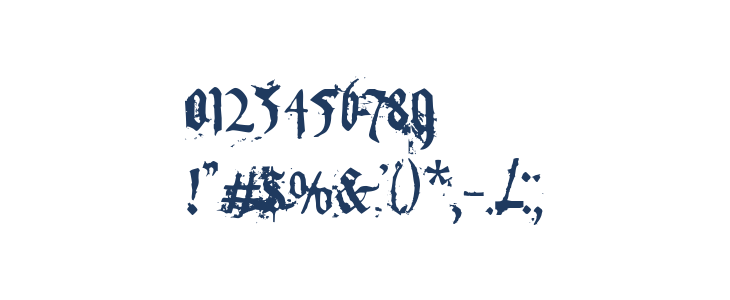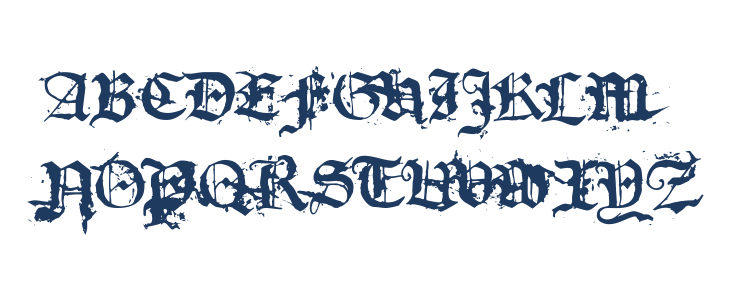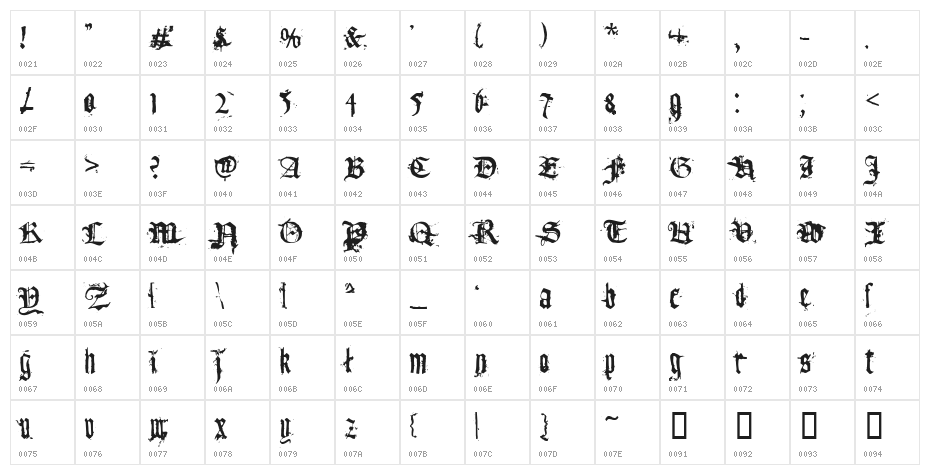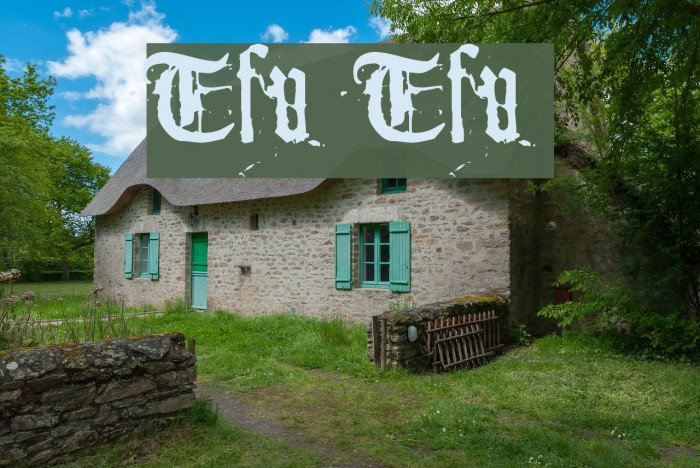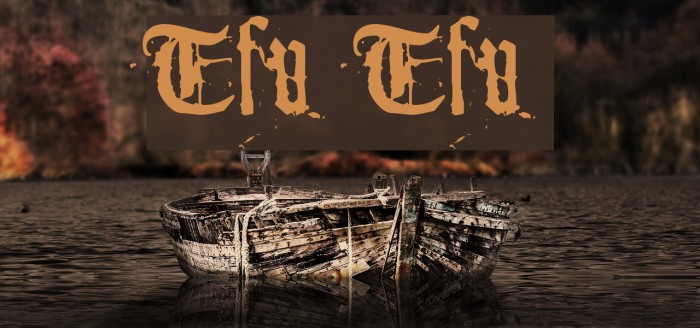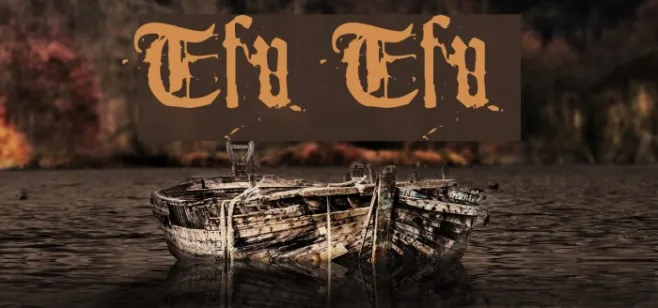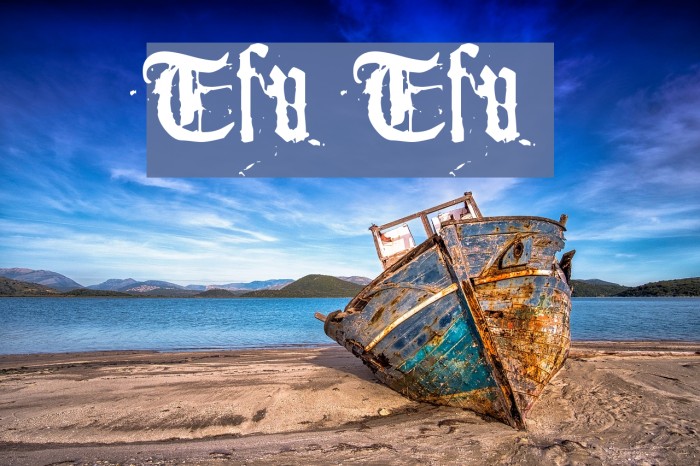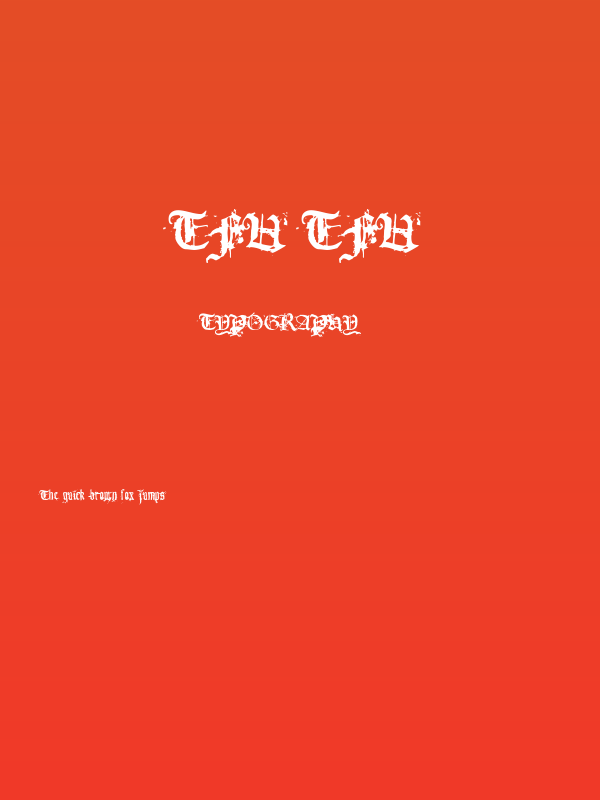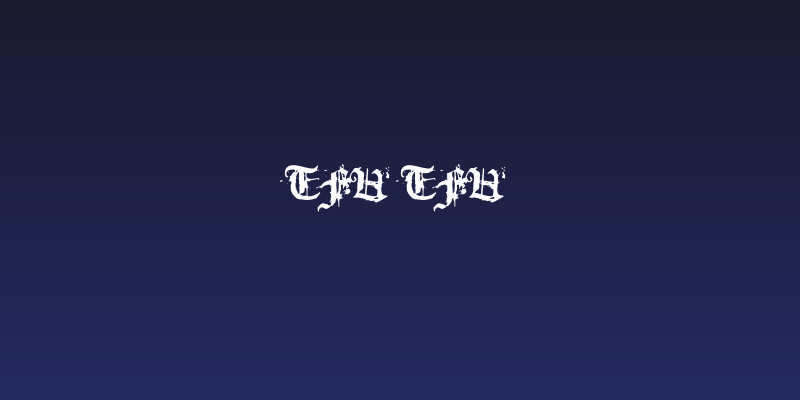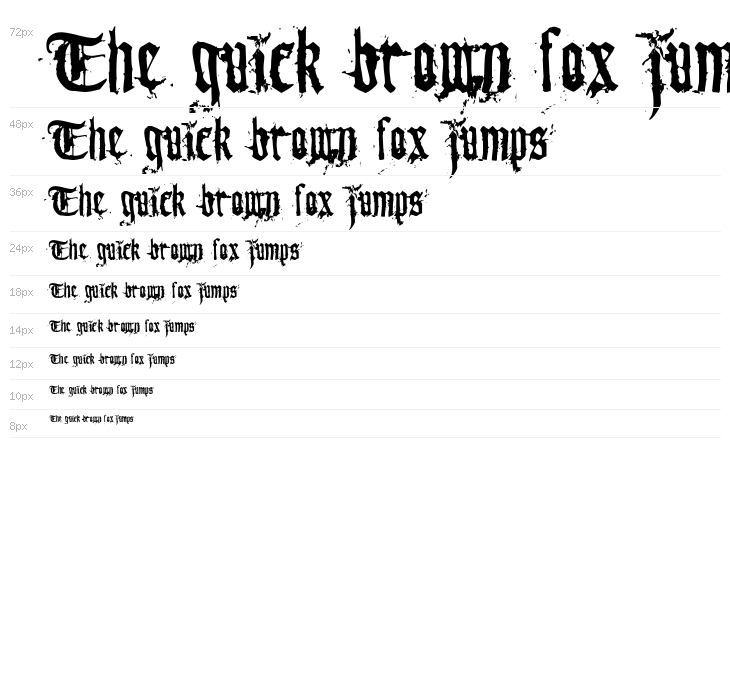
Tfu Tfu Font
Tfu Tfu Description
This font exhibits a distressed, grunge style with a strong blackletter influence. The characters are bold and heavily textured, giving them a worn and rugged appearance. The uppercase and lowercase letters maintain a consistent gothic aesthetic, with sharp angles and elaborate serifs. Numbers and special characters follow the same distressed theme, adding to the overall cohesive look. The font's unique style makes it stand out, ideal for projects that require a dramatic and edgy feel.
| Use Case | Logos, Posters, Headlines |
| Proposed Projects | Perfect for album covers, horror movie posters, gothic-themed events, or any design needing a dramatic, edgy touch. |